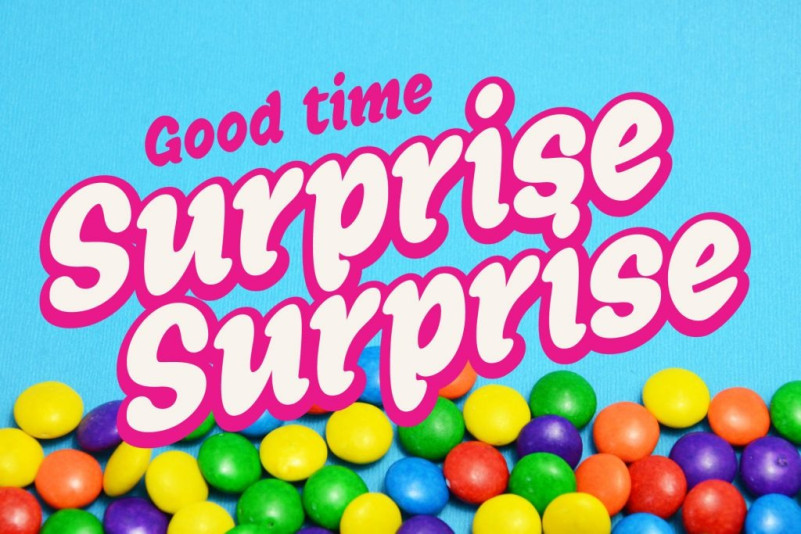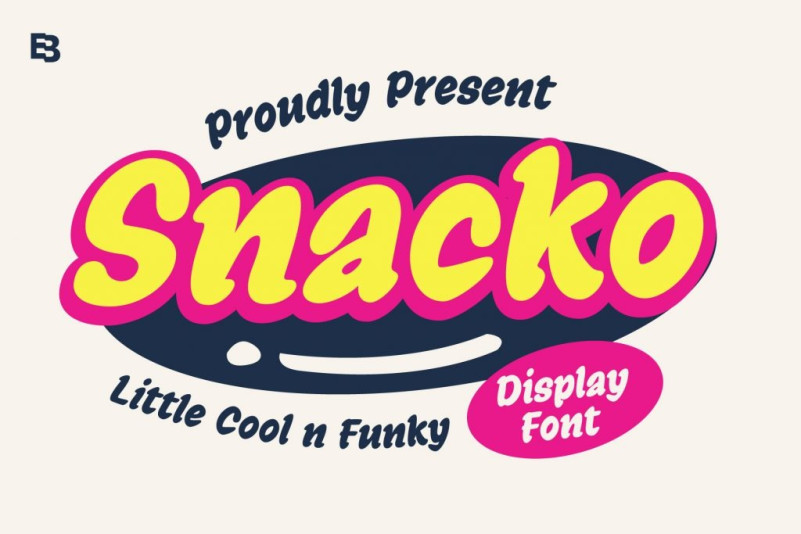
Snacko Font
Snacko Display Font, This font is perfect for stickers, retro projects, craft projects, shirts, svg designs, procreate designs, branding, blogs, logos, invitations and more!